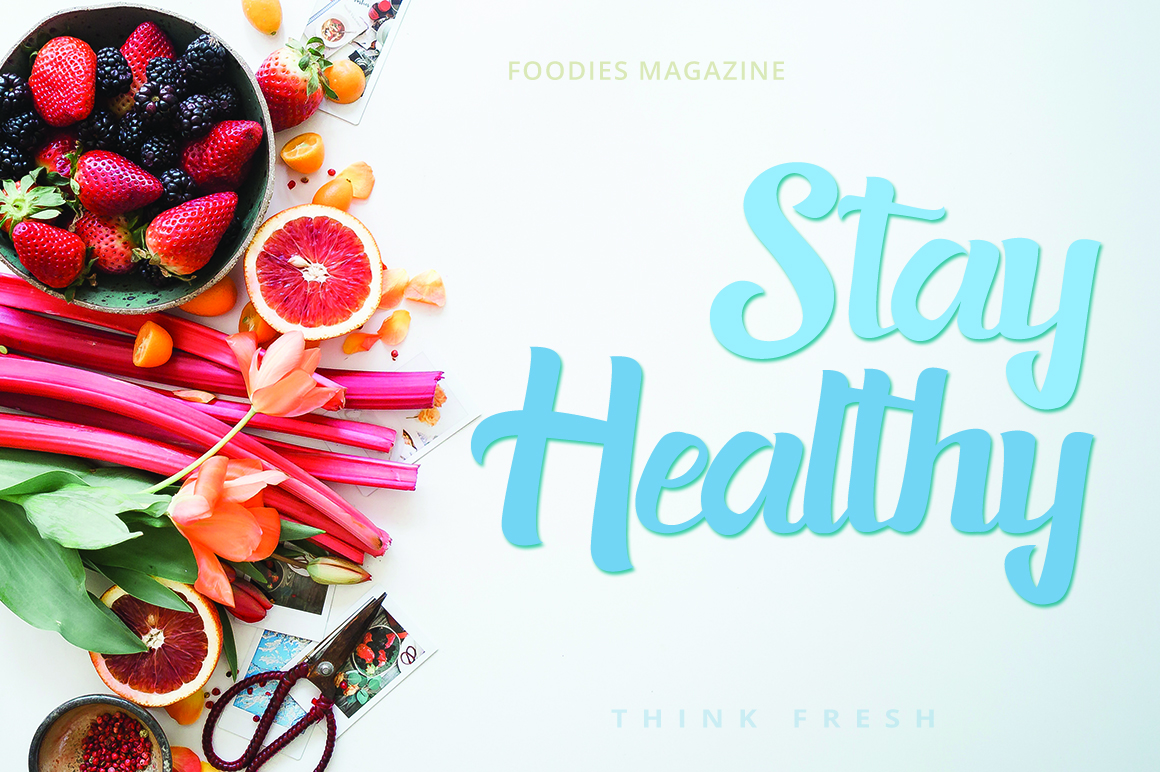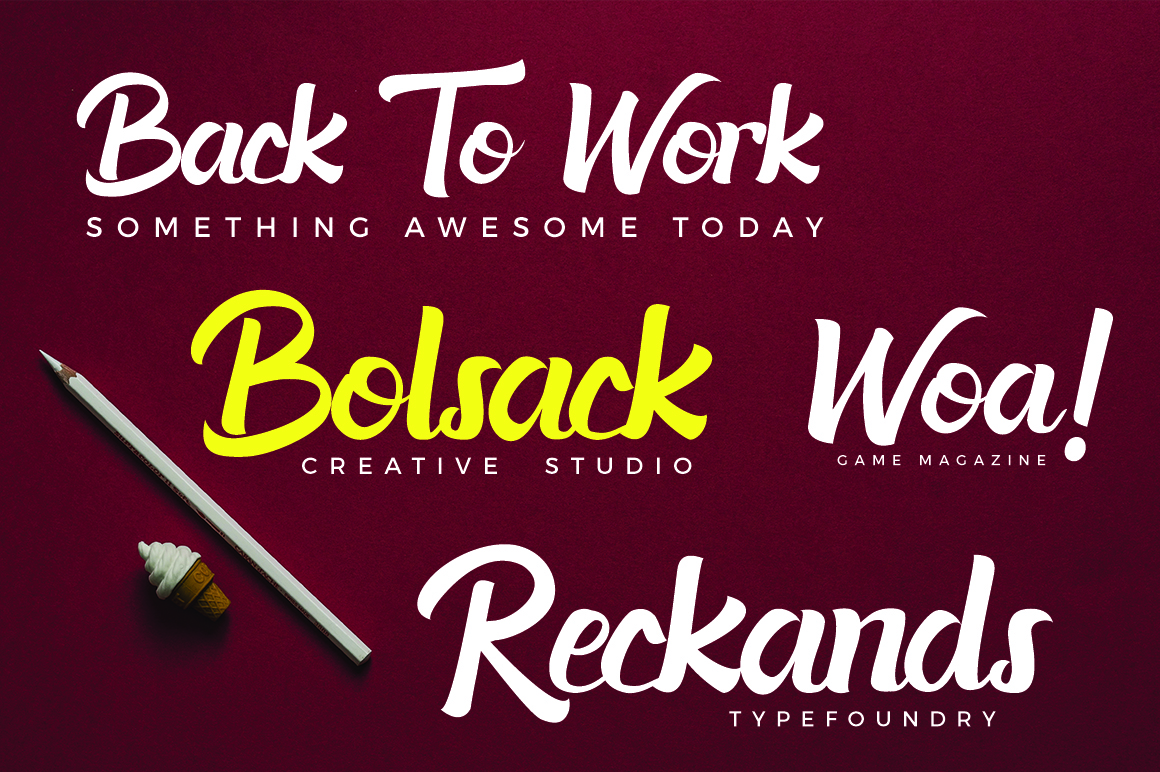
Acknesia Font
About Acknesia Font
Acknesia is a hand lettered script font with a clear style and dramatic movement. Acknesia looks great as a logotype, and functions well in headlines and displays.